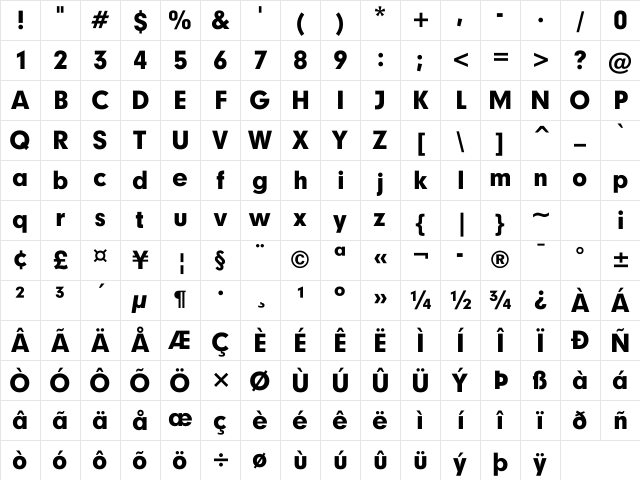
Shankbink Black Regular
Design Context for Shankbink Black
Shankbink Black is a composed and adaptable typeface that performs quietly and consistently across a wide range of design contexts.